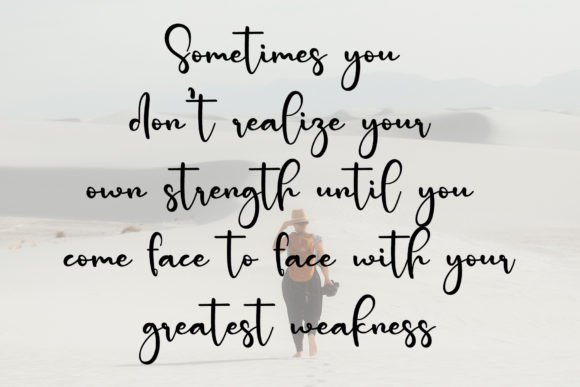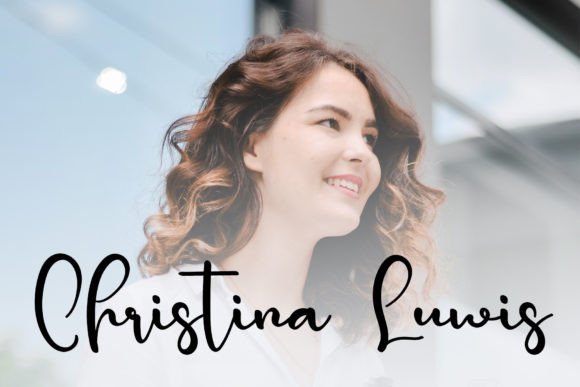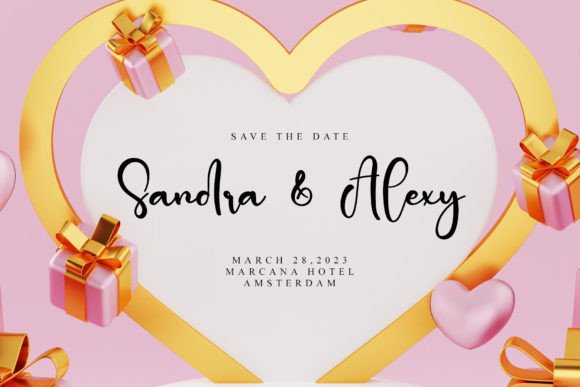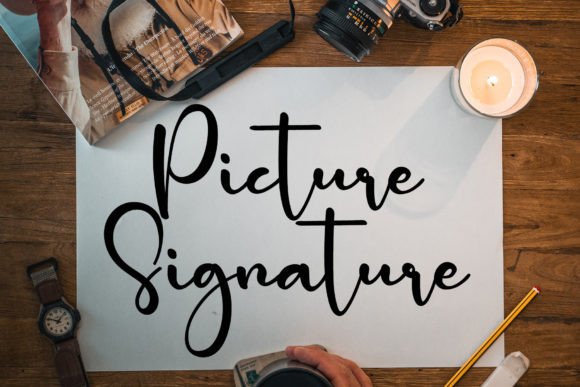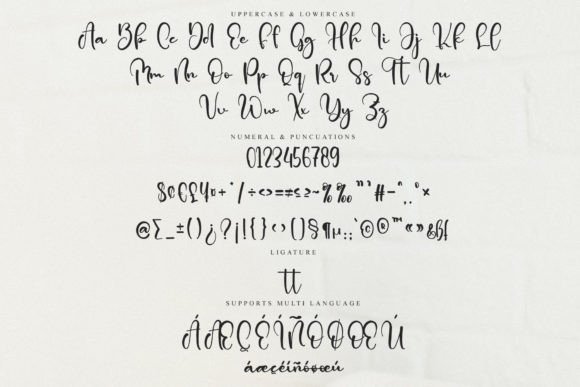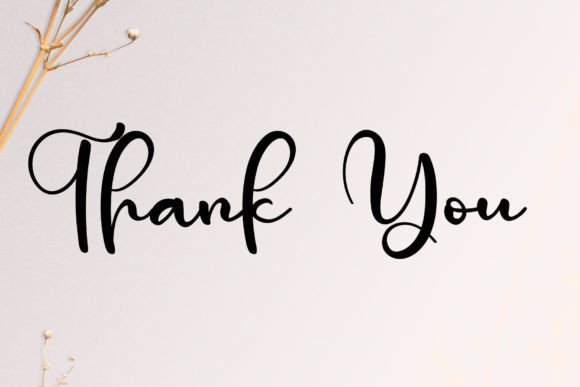
Introducing Backsound Font: Elevate Your Designs with Timeless Elegance
In the world of typography, a font can make or break the aesthetic of a design project. For designers and crafters seeking a touch of sophistication and classic charm, the Backsound Font is an exceptional choice. This stylish handwritten font boasts a contemporary atmosphere while maintaining impeccable form, drawing inspiration from timeless classic calligraphy.
The Essence of Backsound Font
Backsound is not just a font; it’s an experience. It brings balance and variation to your projects, making it a versatile tool for a wide range of design needs. Whether you’re working on a branding project, crafting a unique logo, or simply looking to add some elegance to your digital or print materials, Backsound Font is designed to enhance the beauty of your creations.
Key Features of Backsound Font
- Contemporary yet Classic: Backsound strikes the perfect balance between modern design and classic calligraphy, making it suitable for projects that require a touch of sophistication.
- Handwritten with Precision: The font’s handwritten style is meticulously crafted, offering a personal touch that is hard to replicate with standard fonts.
- Balanced and Varied: With a focus on readability and aesthetic appeal, Backsound provides a range of variations to keep your designs fresh and engaging.
- Impeccable Form: The font’s design ensures that it remains clear and legible, even at smaller sizes, making it versatile for various applications.
Applications of Backsound Font
The versatility of Backsound Font makes it suitable for a multitude of design projects. Here are some of the ways you can leverage this elegant font:
- Branding and Logos: Create a lasting impression with a logo that exudes elegance and professionalism.
- Wedding and Event Invitations: Add a touch of sophistication to your invitations and set the tone for a memorable event.
- Packaging Design: Stand out on the shelves with packaging that combines modern appeal with classic charm.
- Digital and Print Media: Whether it’s a website, blog, or print publication, Backsound can elevate your content and make it more engaging.
Why Choose Backsound Font?
In a sea of fonts, Backsound stands out for its unique blend of classic inspiration and modern design. Here are a few reasons why designers and crafters are gravitating towards this exceptional font:
- Unique Aesthetic: Backsound offers a distinctive look that can set your projects apart from the ordinary.
- High Versatility: Its balanced and varied design makes it suitable for a wide range of projects and applications.
- Easy to Read: Despite its elegant and handwritten nature, Backsound remains highly legible, ensuring your message is communicated effectively.
Backsound Font is more than just a typeface; it’s a design statement. With its stylish handwritten appearance, contemporary vibe, and roots in classic calligraphy, it offers the perfect blend of elegance and modernity. Whether you’re a professional designer or a crafting enthusiast, Backsound Font can elevate your projects, adding a touch of timeless sophistication that resonates with audiences. Explore the possibilities with Backsound Font and discover how it can transform your designs into something truly memorable.